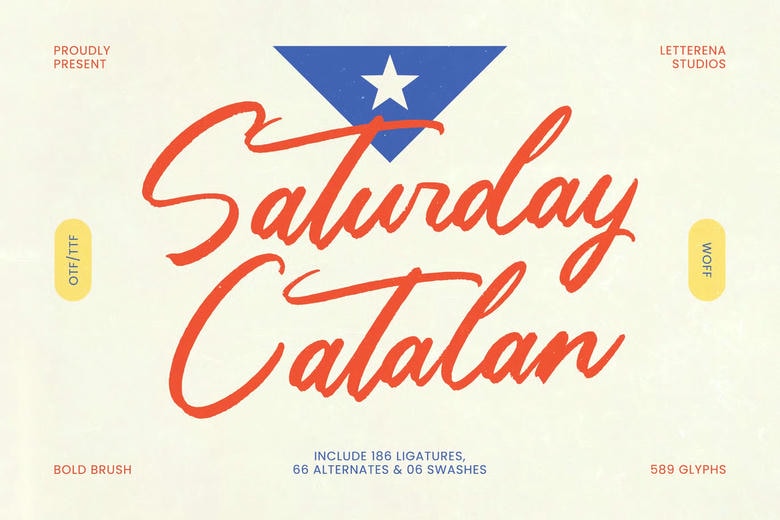
Saturday Catalan Font
Saturday Catalan is a brave and lively brush script font that is drawn with vigorous strokes, handmade texture, and rhythmic movement which provides with 186 ligatures, 66 alternates and 6 swashes to make a dynamical and genuine handwritten appearance.
With a purposeful fusion of brashness and fluidity, this typeface is aimed at giving an appealing branding features, retro-inspired layout, cafe packaging, posters, social media visuals, and other lifestyle items.
Saturday Catalan Brush Script Font